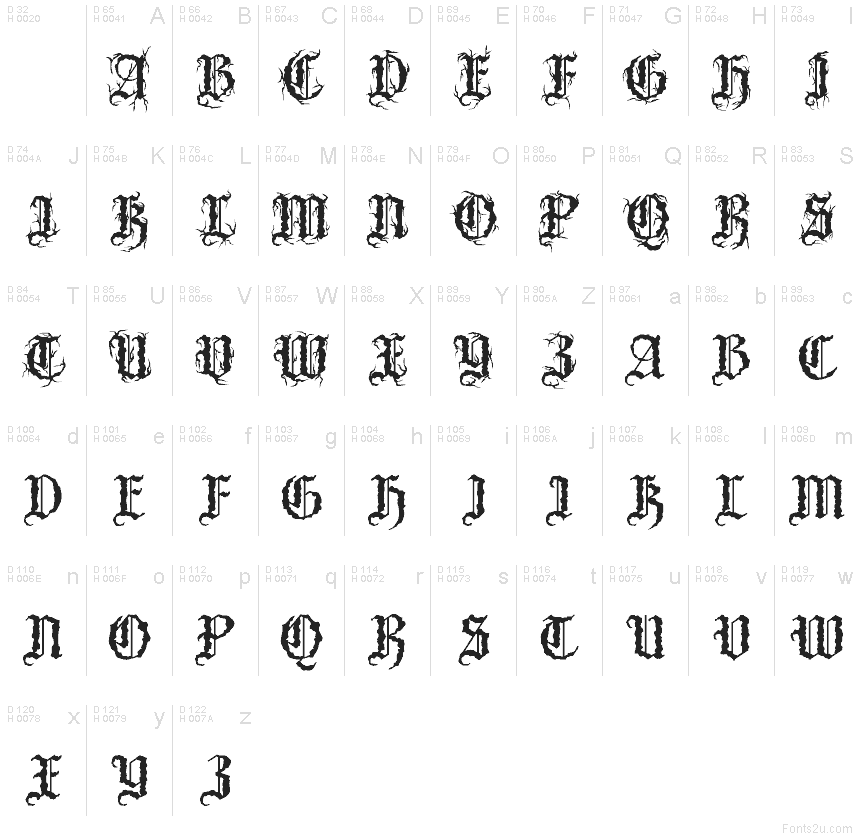
CS Varden Regular Demo
CS Varden font by Craft Supply Co. is a gothic medieval creation with an ornamental, elaborate style. The intricate detailing and historical feel lend the typeface a dark mood, one associated with classical gothic architecture and literature. This free font is professionally created so that you can easily bring mystery to your texts.
Due to its playful nature, CS Varden can be safely used in headlines, branding designs, decorative packaging displays, books covers, web design elements, and stationery goods. Use it for posters whether these present events or movies titles as well as accessory labels or slogans.